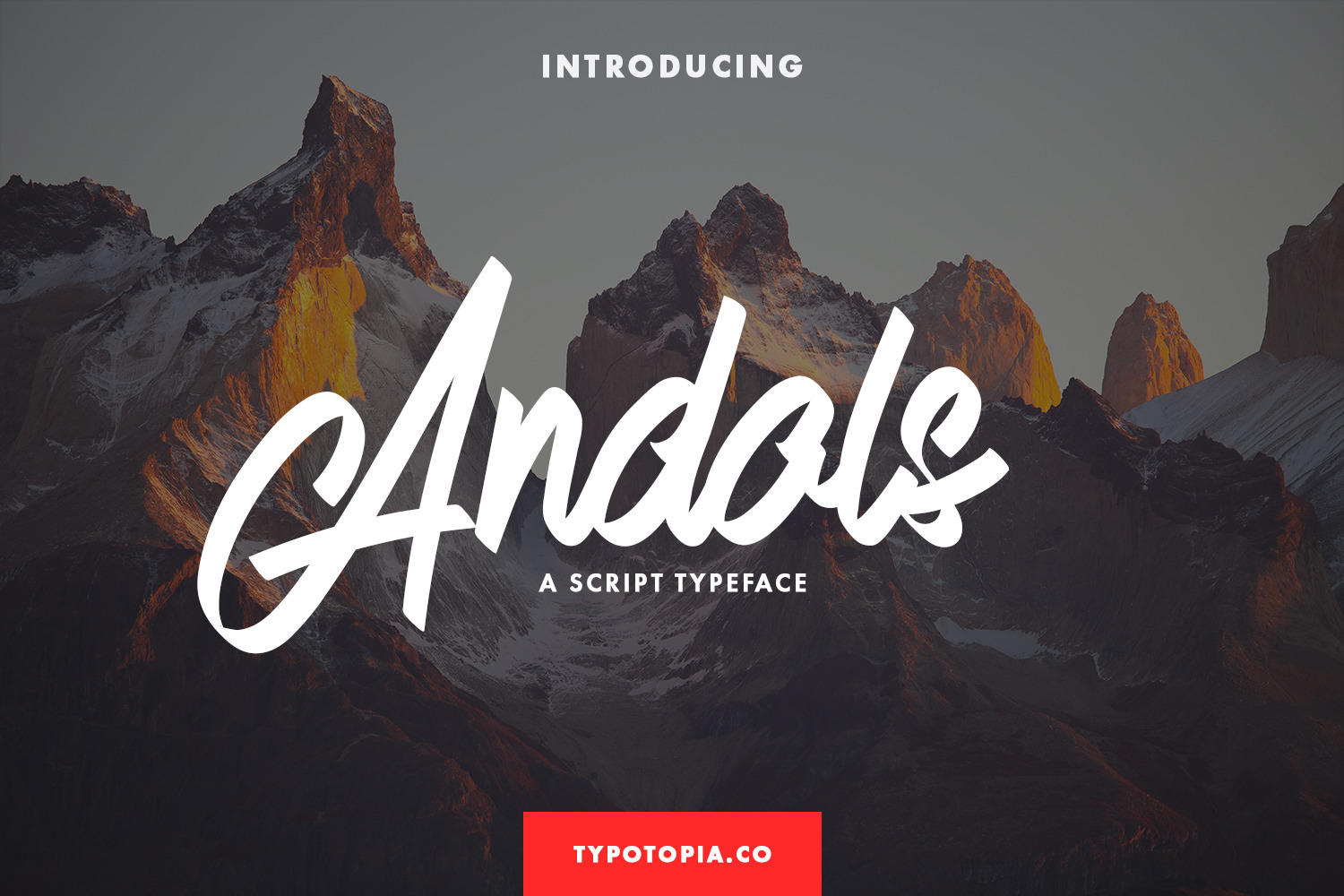
Andals Script Typeface
Introducing, Andals a Fancy & Unique Script Font!!
Andals is a Fancy & Unique Script Font for your Design that is absolutely great for your next creative project such as logos, printed quotes, invitations, cards, product packaging, headers, Logotype, Letterhead, Poster, Apparel Design, Label, and etc.
This Versatile Font includes also supports Multilingual Characters. Making this Font a Swiss Army knife in your Font Library. It's extremely fun to use as each word can be transformed to your liking.
- Uppercase & Lowercase letters